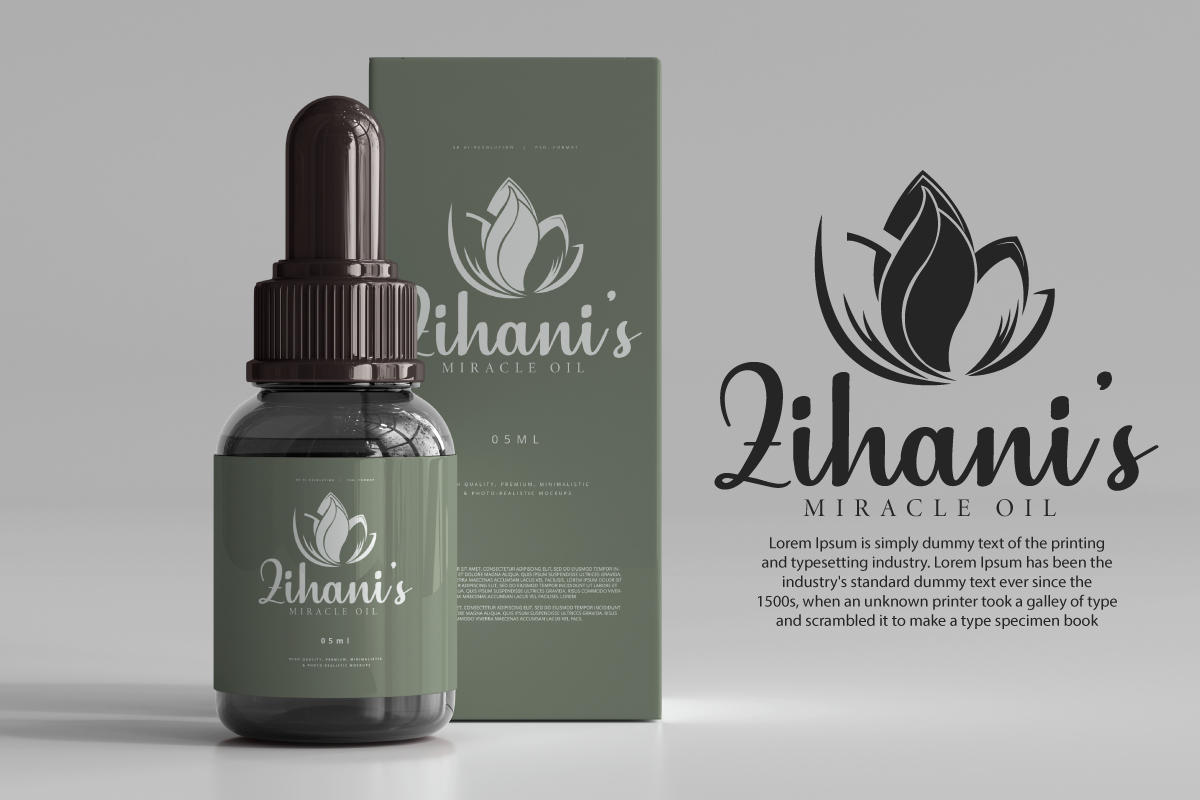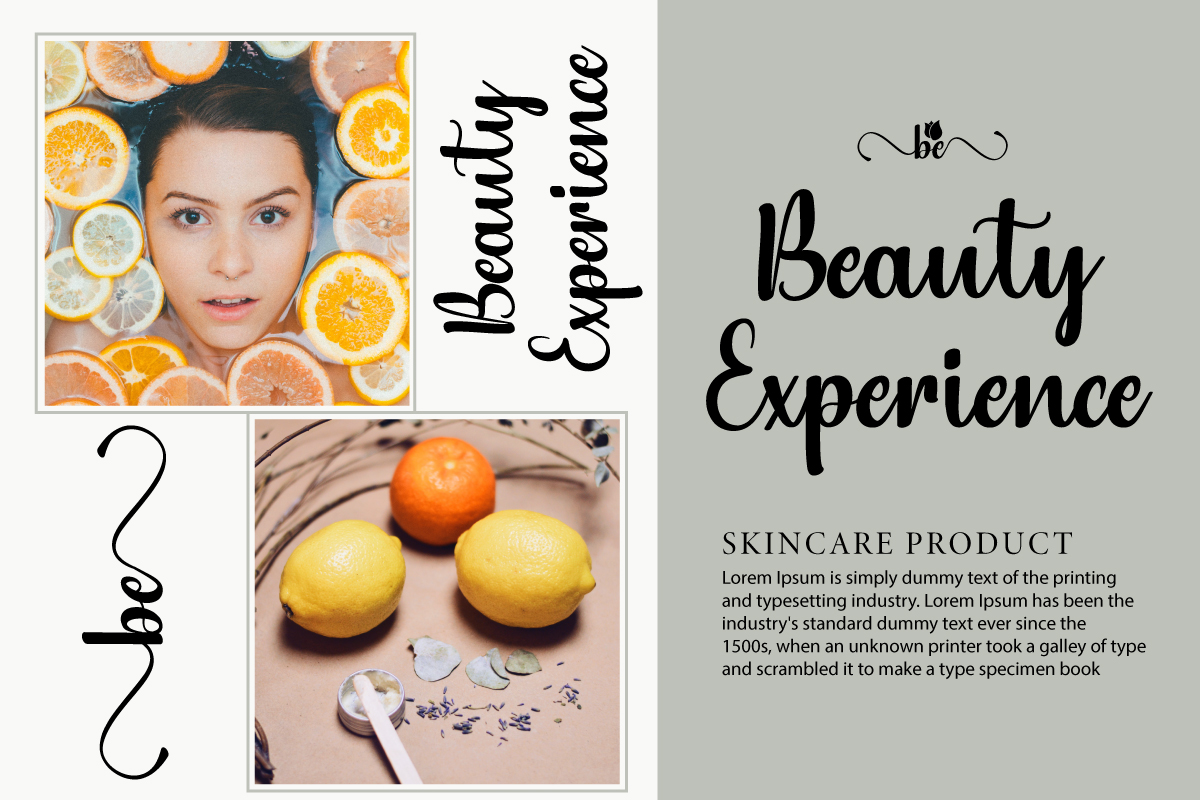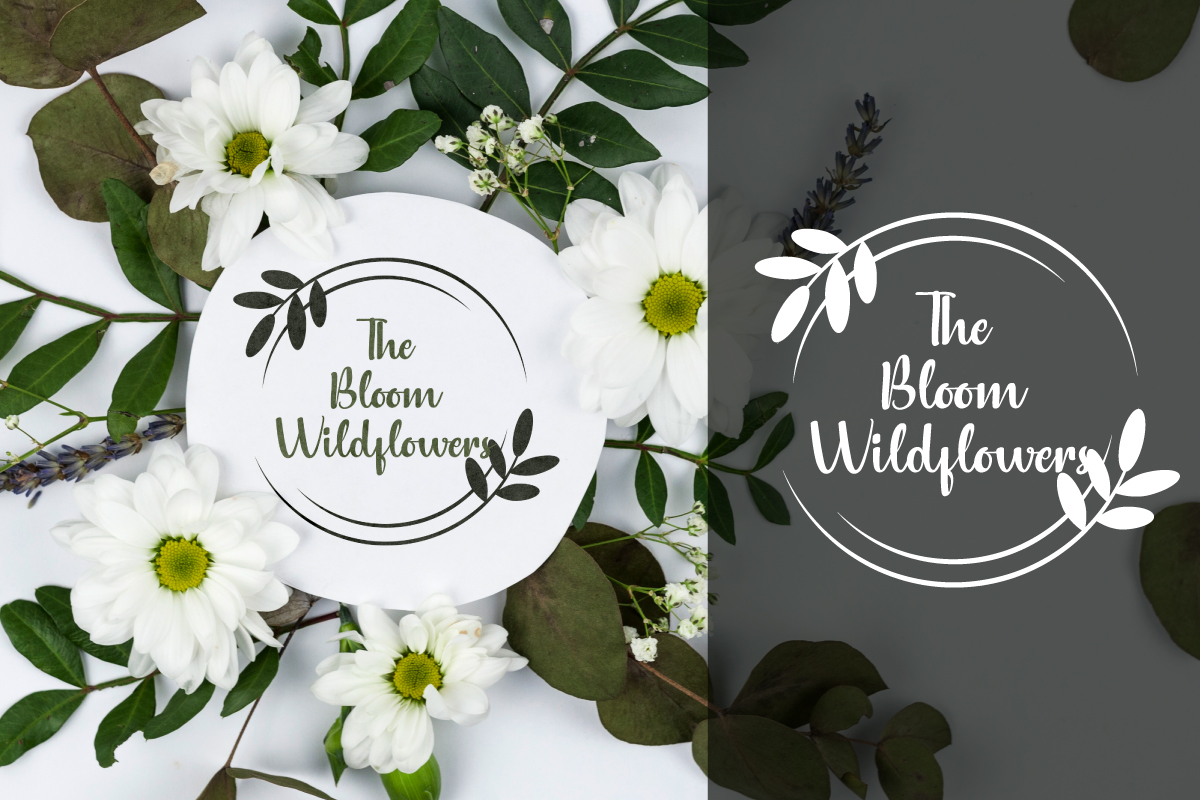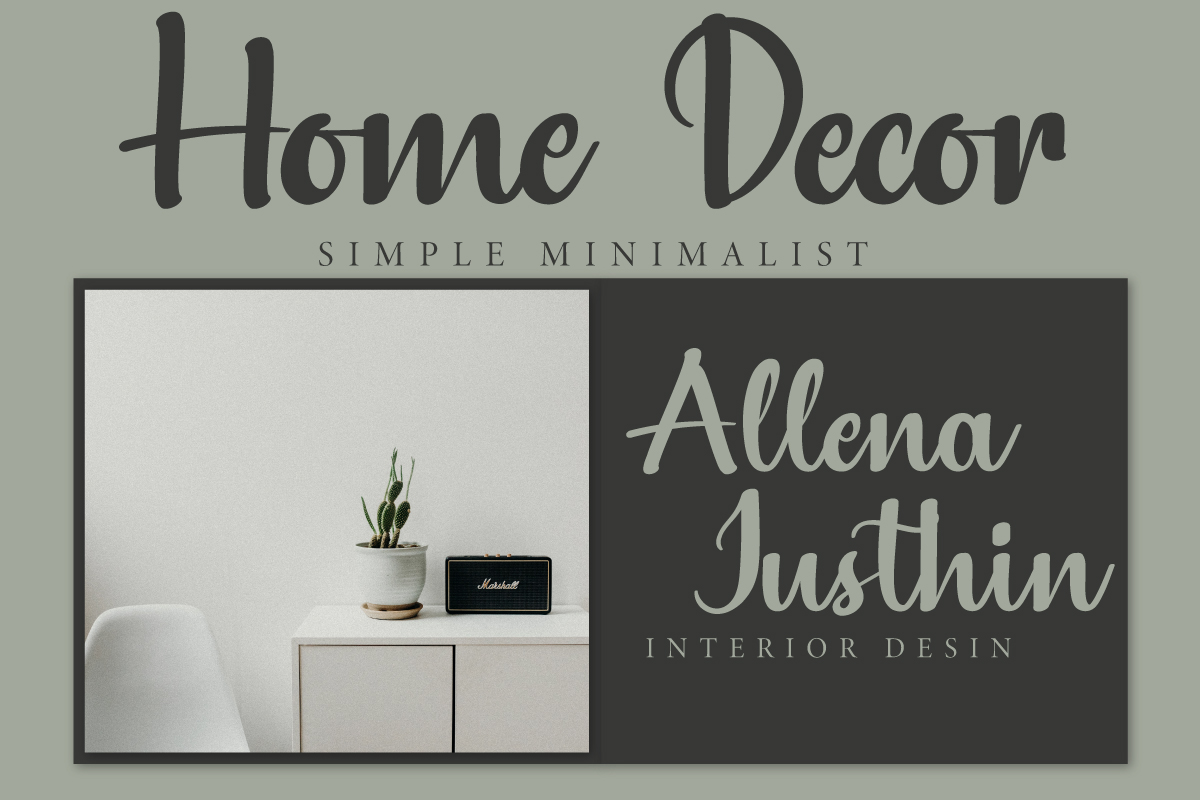
Raviola Font
Raviola Calligraphy Font
This font will be great for any of your special projects including : weddings, promotion, events, branding, advertising, magazine, shopping, signage, invitation, stationery, social media posts, product packaging, product designs, label, photography, watermark or and any projects that need handwriting style. Raviola Font includes full set of gorgeous uppercase and lowercase letters, numerals, a large range of punctuation and ligatures. We made Raviola Font looks stunning handwritten looks, giving realistic hand-lettered style.